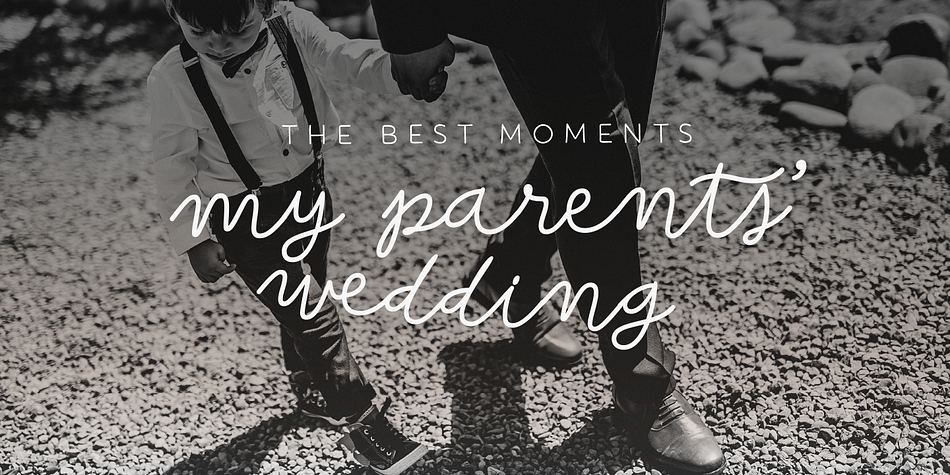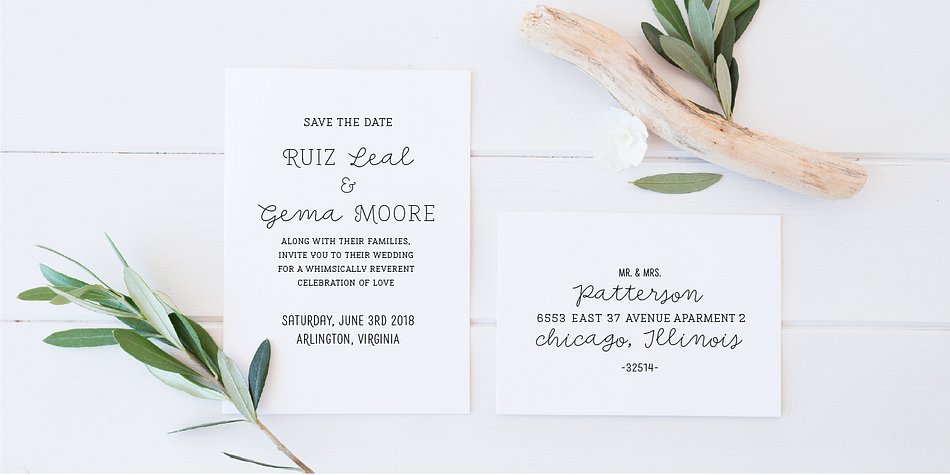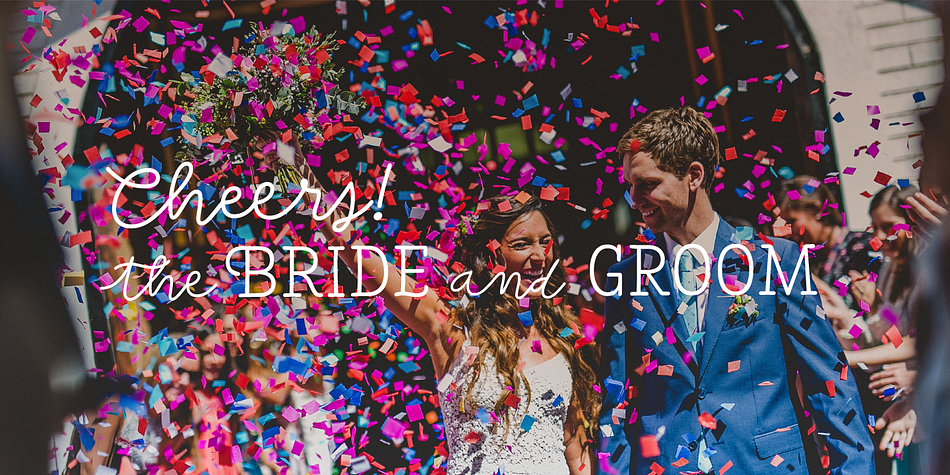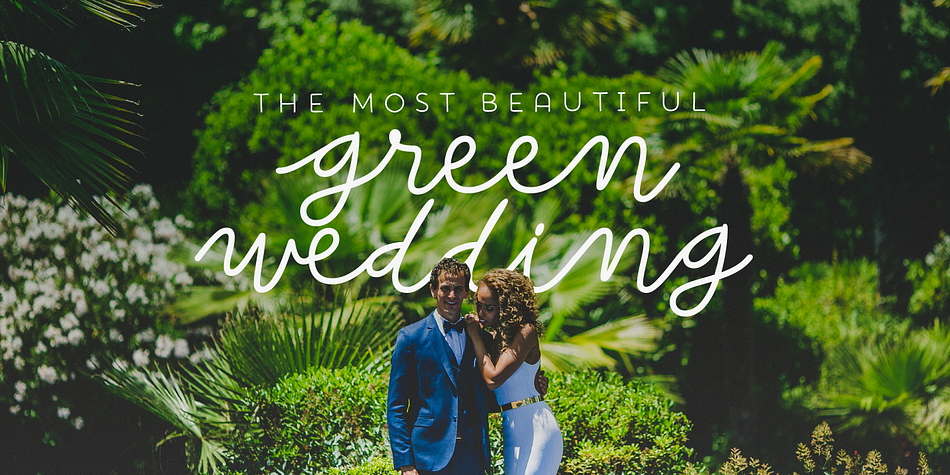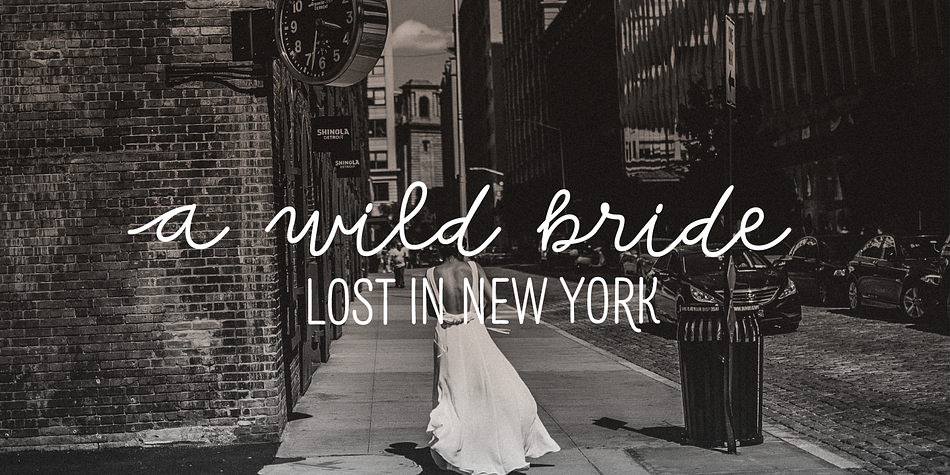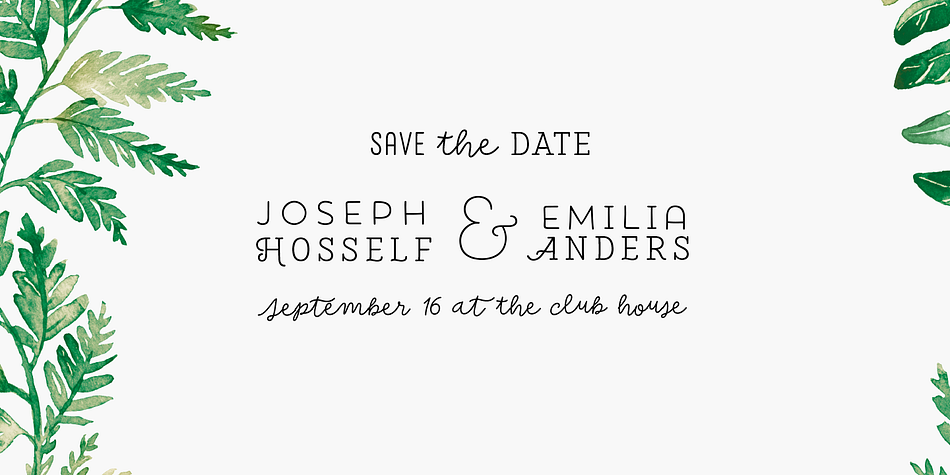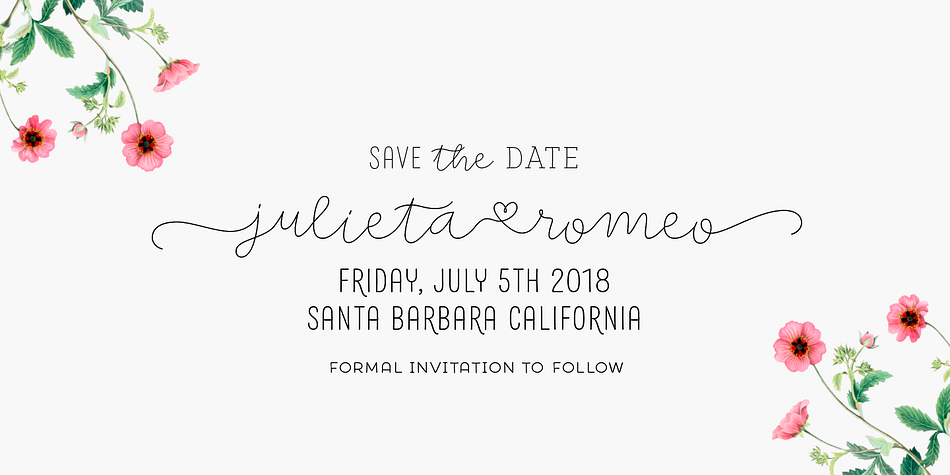
Designed by Daniel Hernández and Paula Nazal Selaive, Save the Date is a script, display sans and display serif font family. This typeface has nine styles and was published by Latinotype.
A wedding begins long before the “I Do’s” on the big day—everyone works together throughout the process to make sure that everything happens as planned: details, color combinations, decorations, the way we convey the magic of the visual elements and deliver our message of love.
Through this beautiful font, we would like to deliver to you that very message, you make it your own and express yourself in your own way—through the perfect invitation on your wedding day. No matter how sweet or wild your invitation looks, try to be yourself.
Save the Date is a font collection consisting of 9 styles and 4 variants: Script, Sans, Serif and Small. The font set is intended to provide users with a wide range of choices for any design project.
Styles | Display Sans, Display Serif, Script |
Designers | Paula Nazal Selaive, Daniel Hernández |